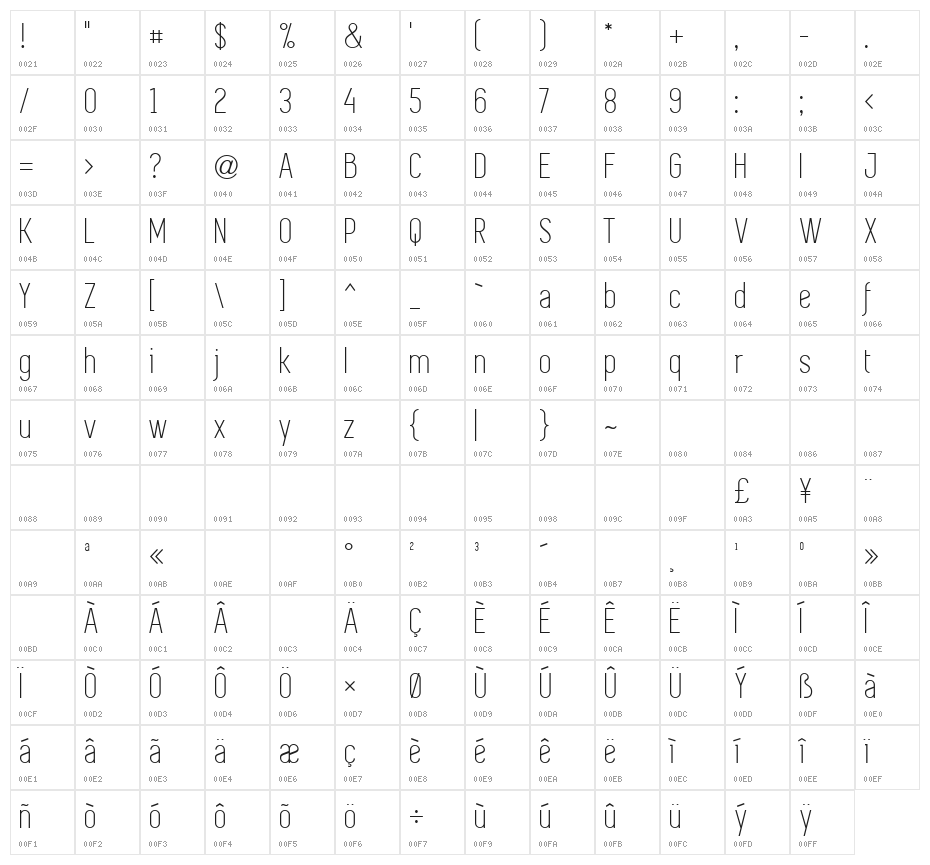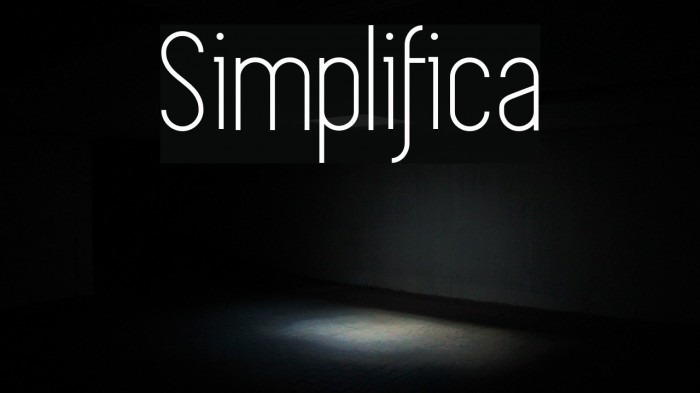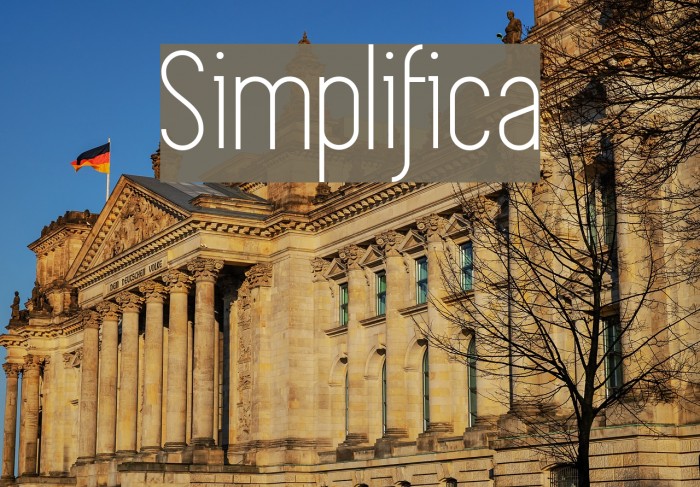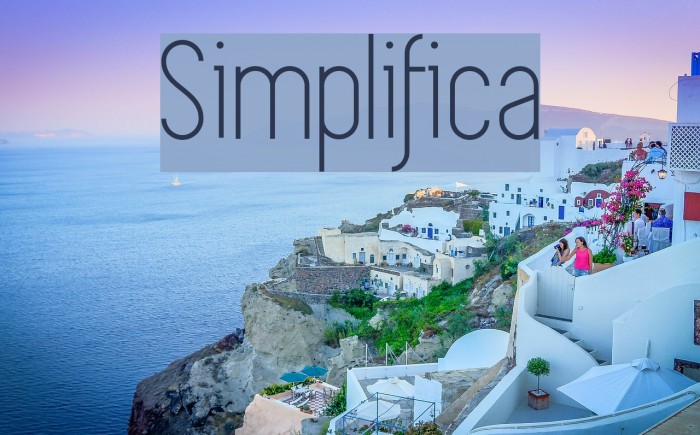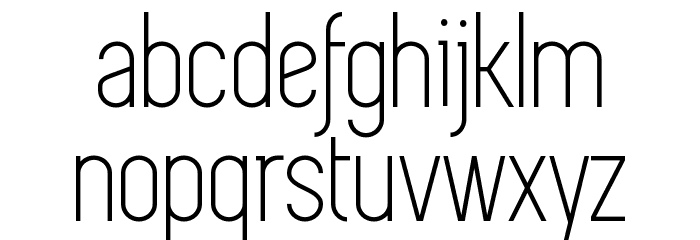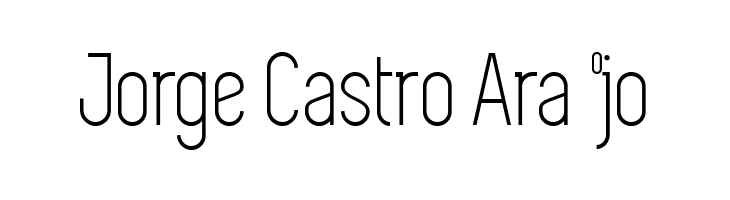
Simplifica Font
Simplifica Description
This font features a clean, minimalist design with a geometric structure. The characters are tall and narrow, giving it a sleek and modern appearance. The strokes are consistent in width, providing a uniform look across all characters. The uppercase letters are slightly taller than the lowercase, maintaining a balanced proportion. The numerals are clear and easy to read, matching the overall style of the alphabet. Special characters are designed with the same attention to detail, ensuring they blend seamlessly with the rest of the font. This font's simplicity and elegance make it versatile for various design applications.
| Width | Condensed |
| Use Case | Headlines, Body text, Logos |
| Proposed Projects | Ideal for branding, editorial design, web design, and minimalist posters. |